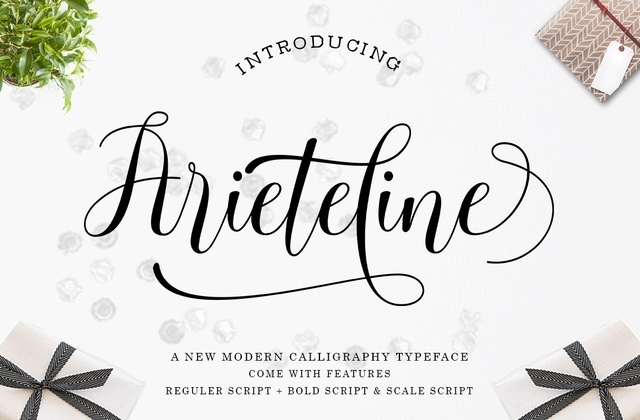
Ariteline Script Font
Ariteline Script Font is perfect for elegant calligraphy projects, sophisticated wedding invitations, luxury brand signatures, handwritten correspondence, premium stationery design, artistic logo creation, refined greeting cards, upscale restaurant menus, boutique fashion branding, and graceful personal branding materials.
Ariteline Script Font is exciting because it embodies the refined artistry of masterful penmanship with its flowing, graceful letterforms that capture the elegance and sophistication of traditional calligraphy craftsmanship. Its distinctive character design combines classical script tradition with contemporary refinement, making it perfect for brands that want to communicate artistic excellence, personal touch, and the kind of sophisticated elegance that elevates any design to luxury status.
The Ariteline Script Font family includes Regular weight, Bold variation, Swash capitals, Decorative alternates, Calligraphic flourishes, Elegant ligatures, Ornamental elements, and Artistic connections, providing designers with comprehensive tools for creating beautifully sophisticated script typography that captures the essence of fine calligraphy and handwritten elegance.
Whether you're developing luxury brand identities, designing elegant wedding materials, creating sophisticated stationery, or producing artistic communications, Ariteline Script Font provides the graceful foundation needed for authentic elegance positioning. Its calligraphic character makes it particularly effective for wedding planners, luxury stationery designers, high-end restaurants, and artistic service providers targeting sophisticated clients who appreciate fine craftsmanship and elegant design.
Perfect for calligraphy artists, luxury brand designers, wedding professionals, and creative specialists working with high-end clients, this font offers the artistic qualities essential for successful luxury script positioning. The typeface's graceful nature ensures consistent elegance across both traditional handwritten applications and contemporary digital luxury platforms.
Ariteline Script Font includes comprehensive calligraphic character sets, artistic design elements, and elegantly optimized spacing that guarantees superior performance in sophisticated script applications. Its refined approach to script typography makes it indispensable for brands requiring artistic elegance and calligraphic sophistication. Create artistic elegance with Ariteline Script Font Free Download and discover typography that truly flows with graceful sophistication.